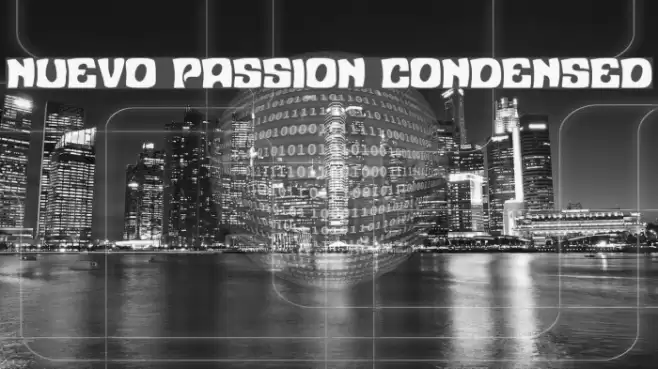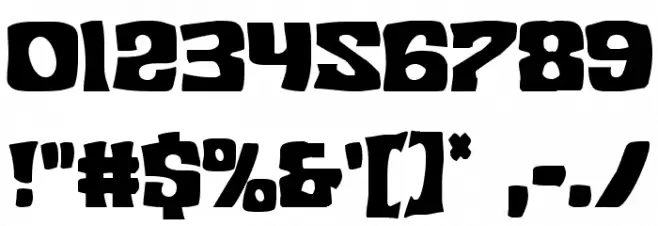
Nuevo Passion Condensed Font
Nuevo Passion Condensed Description
This font features a bold and dynamic style with a condensed width, making it ideal for impactful headlines and attention-grabbing designs. The characters are uniquely shaped with a playful and slightly retro aesthetic, characterized by thick strokes and a high contrast between the filled and open spaces. The uppercase and lowercase letters maintain a consistent style, while the numbers and special characters complement the overall design with their bold presence. This font is perfect for projects that require a strong visual statement, such as posters, branding, and advertising materials.
A bold, condensed font with a playful, retro aesthetic and high contrast strokes from Fancy fonts.
- Proposed Projects: Ideal for posters, branding, advertising, and any design needing a strong visual impact.
- Overall Style: Retro, Decorative